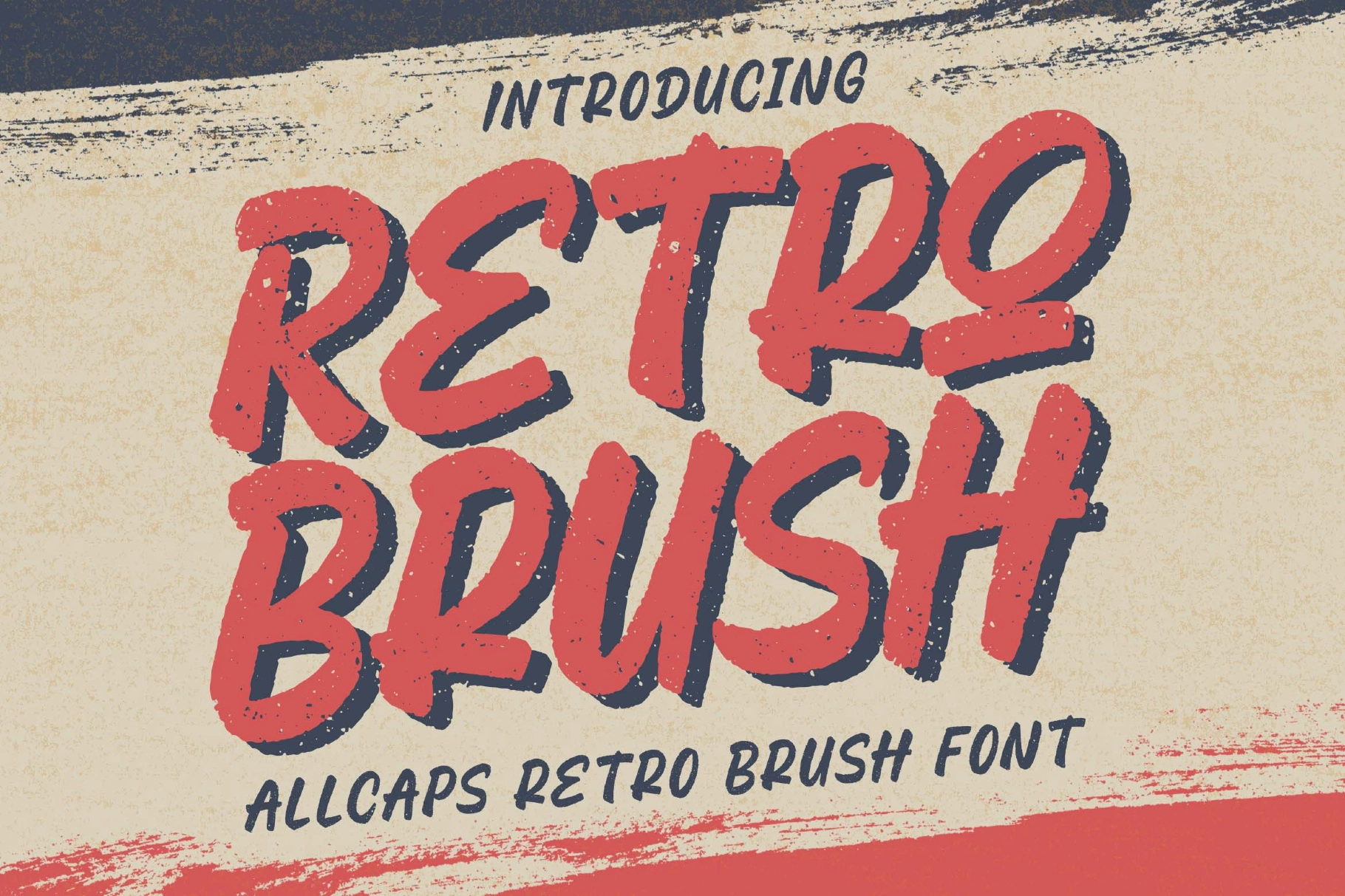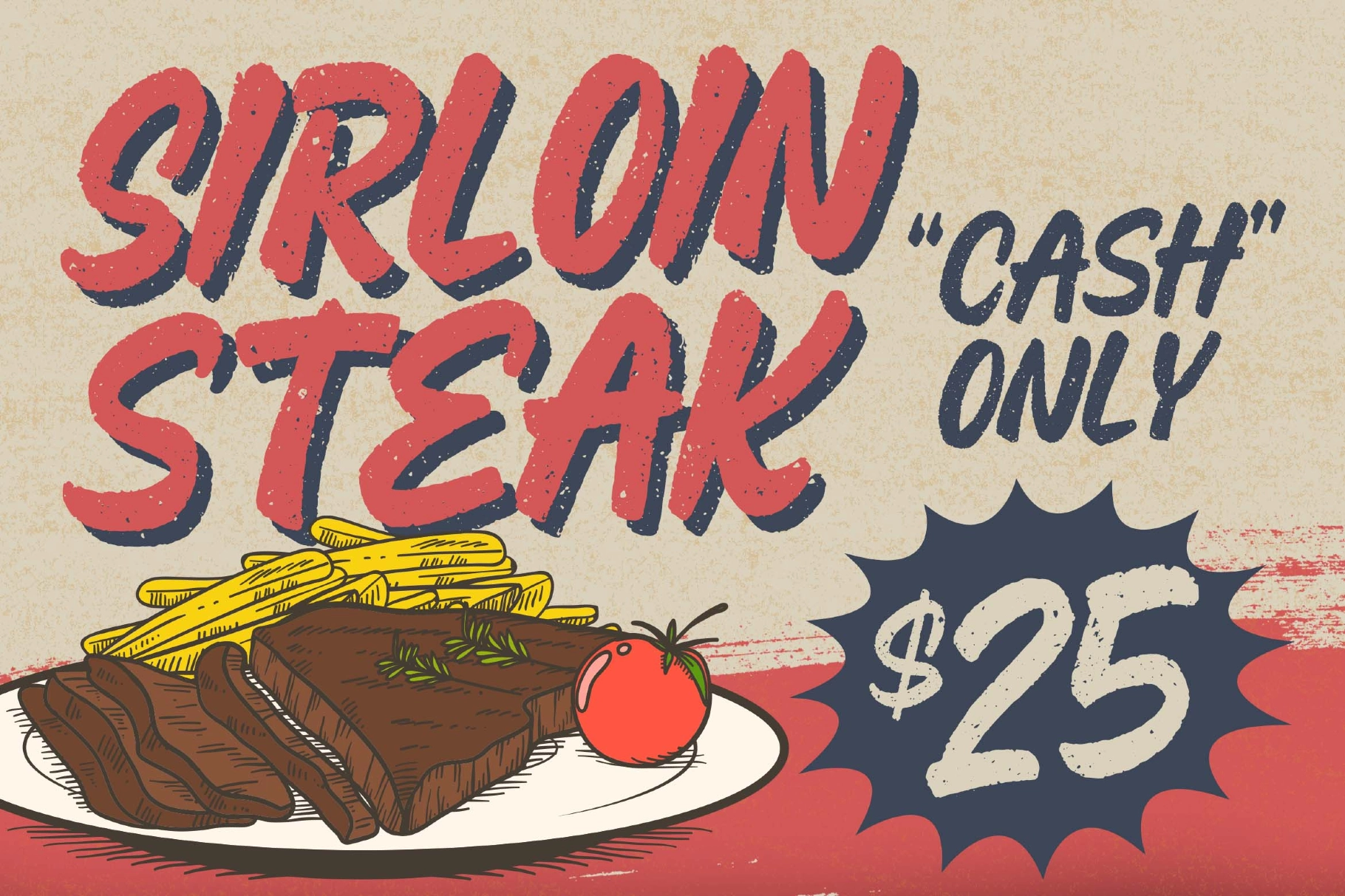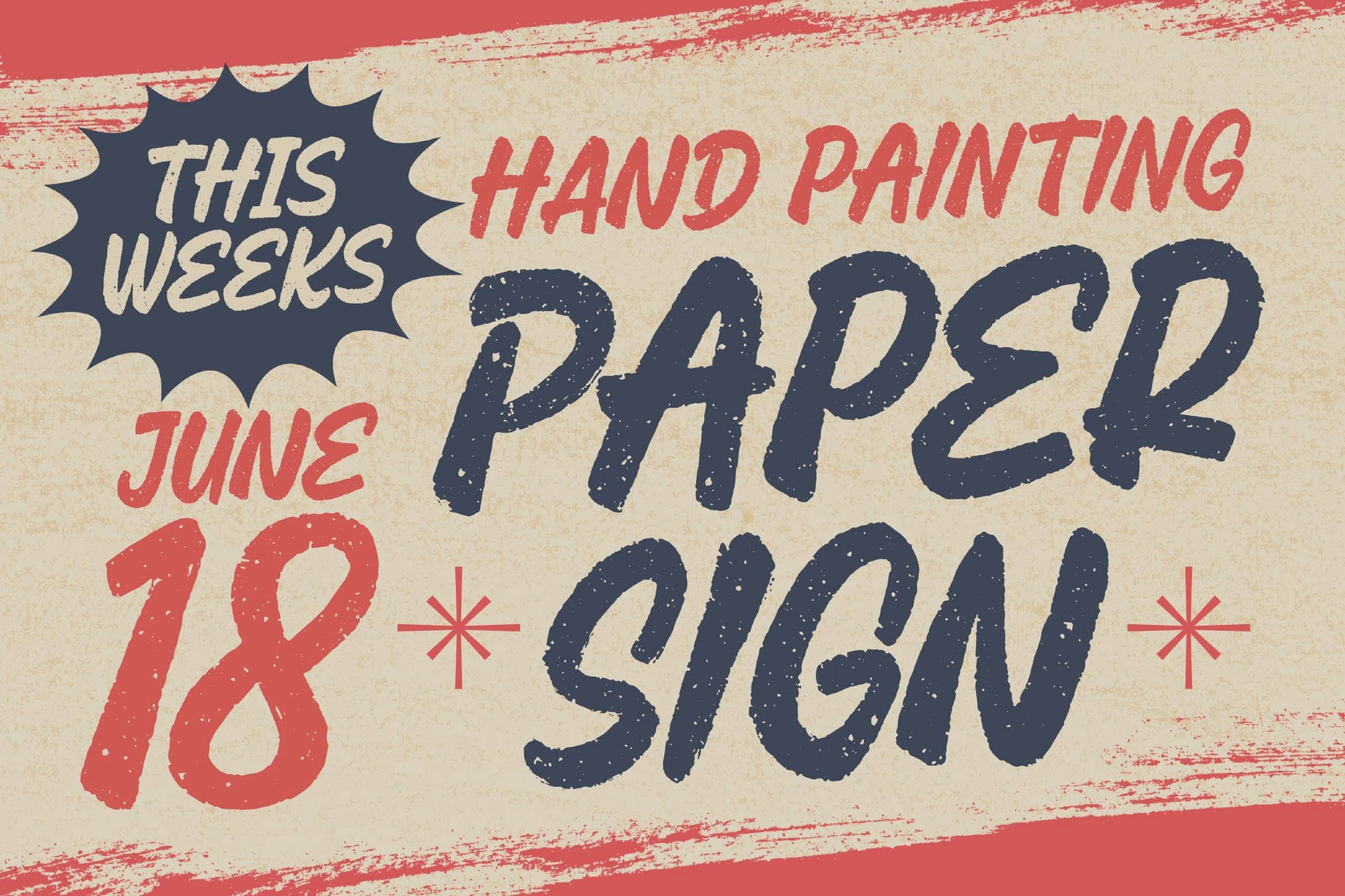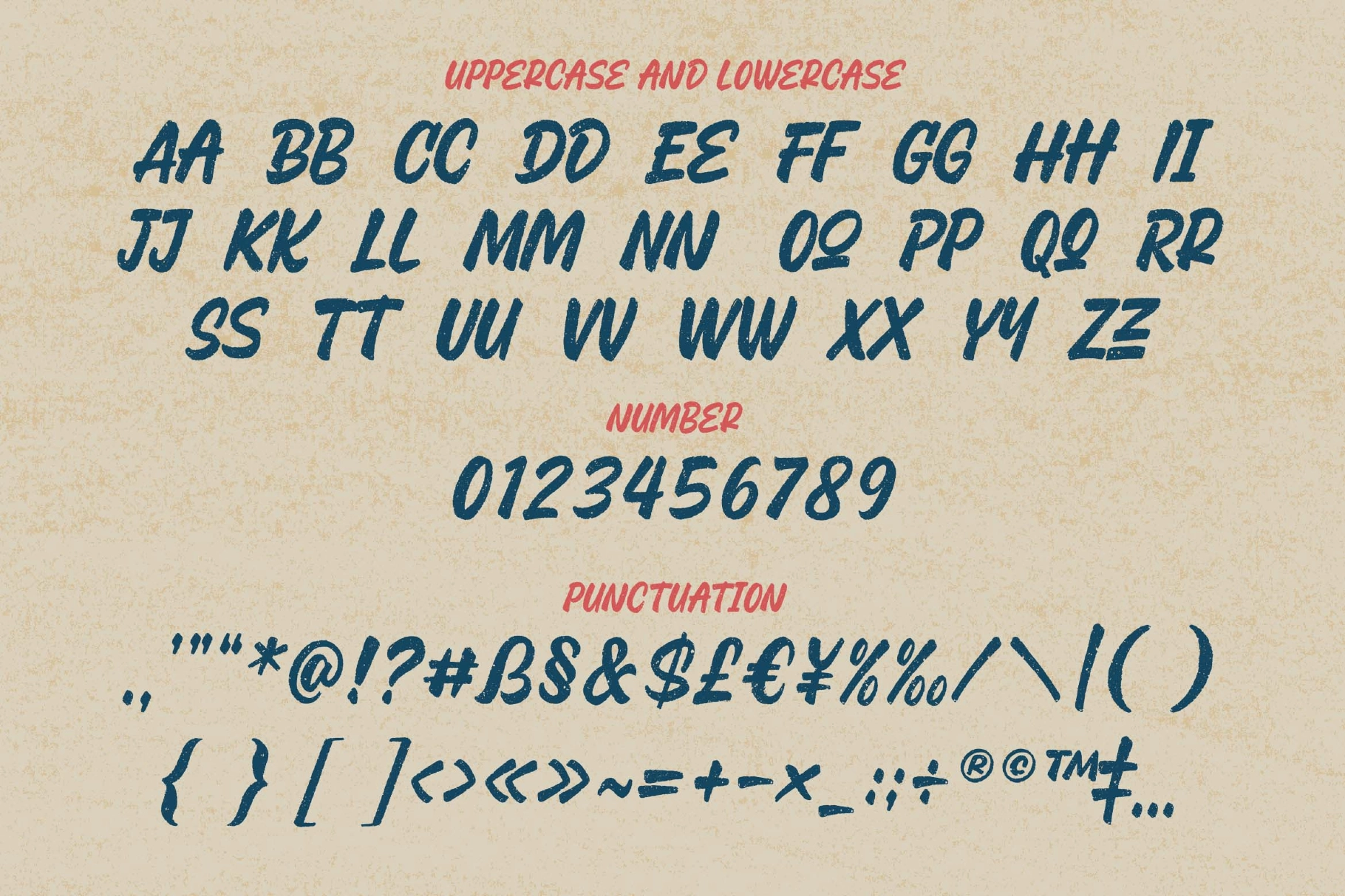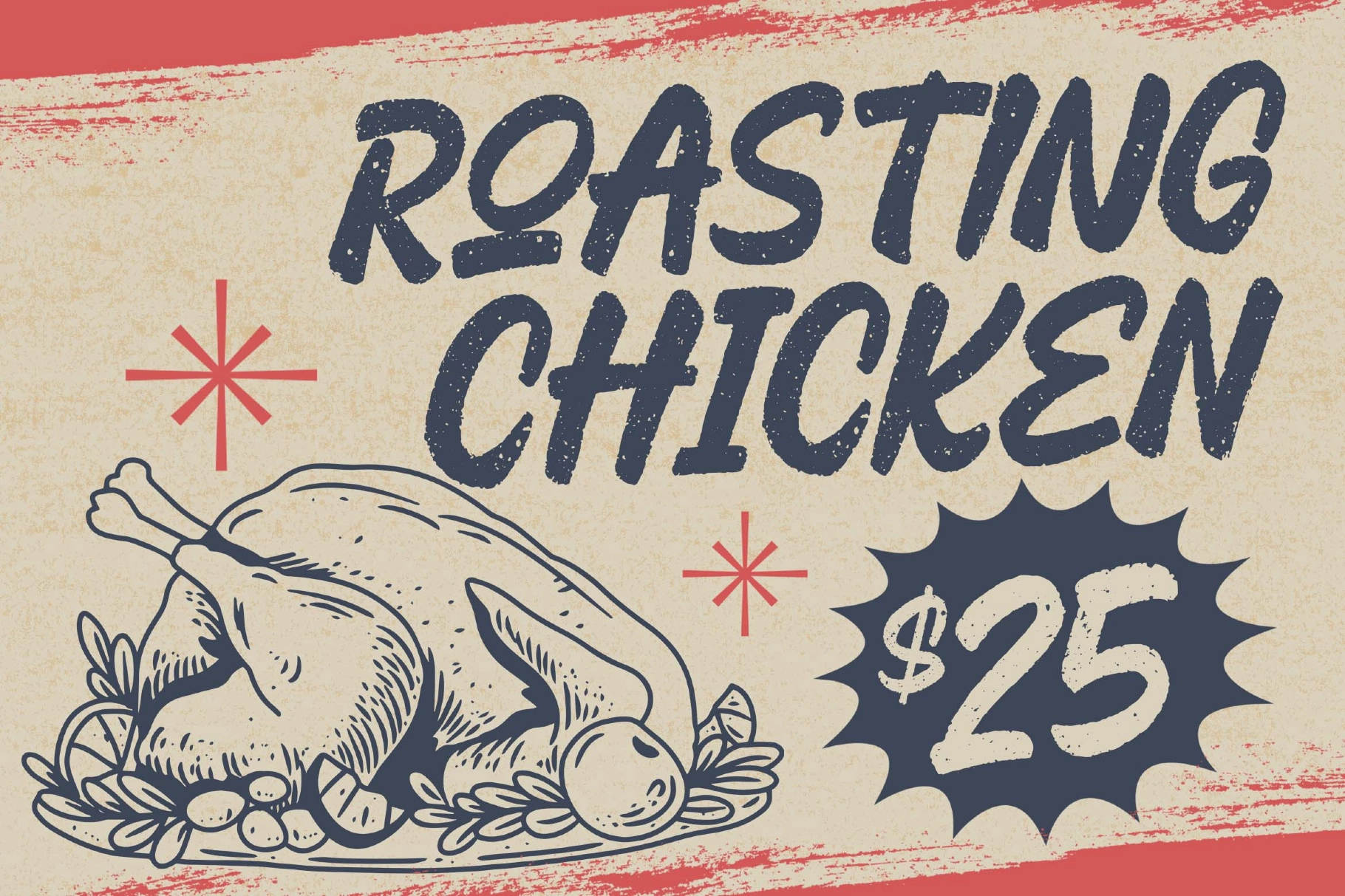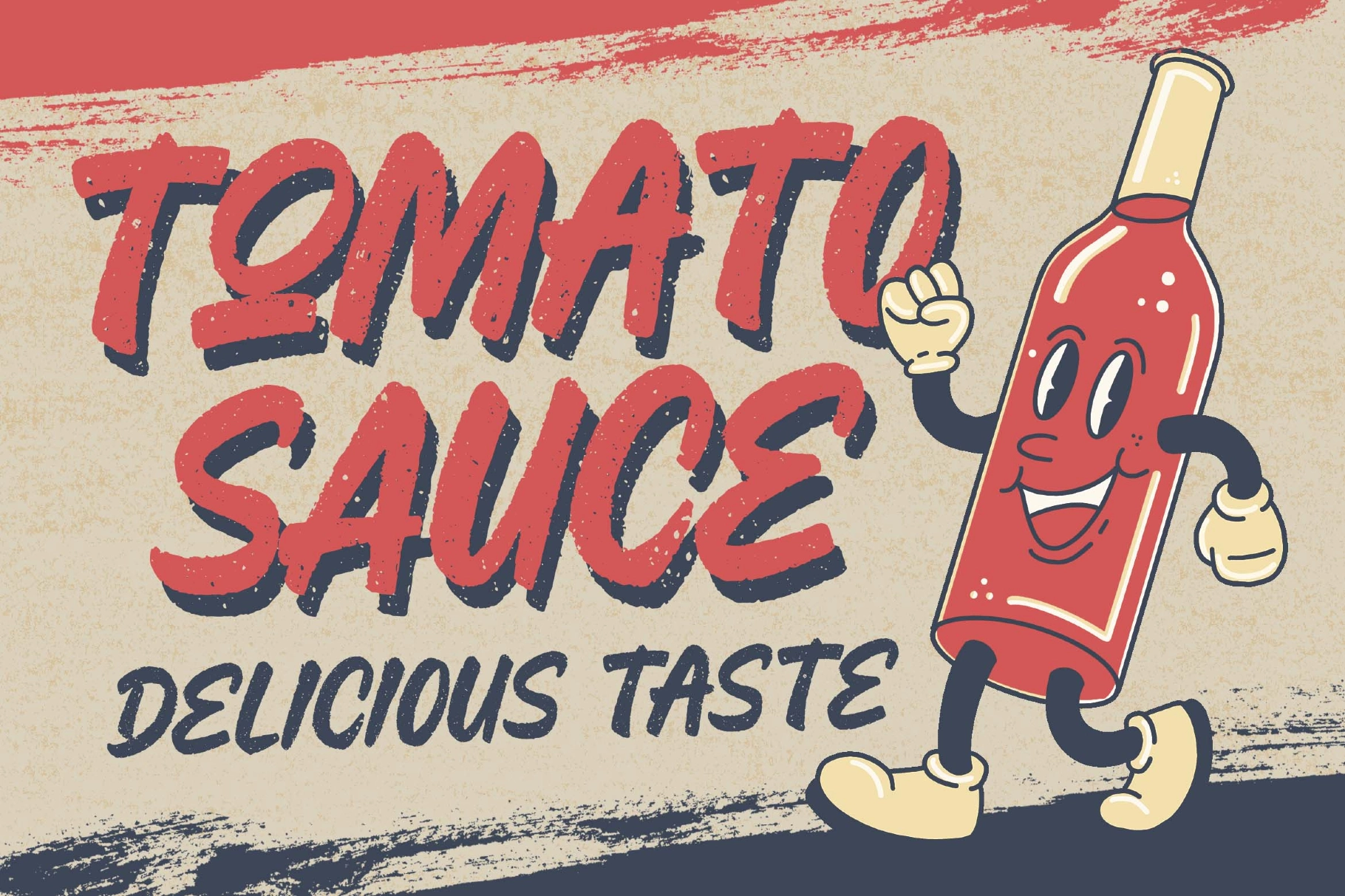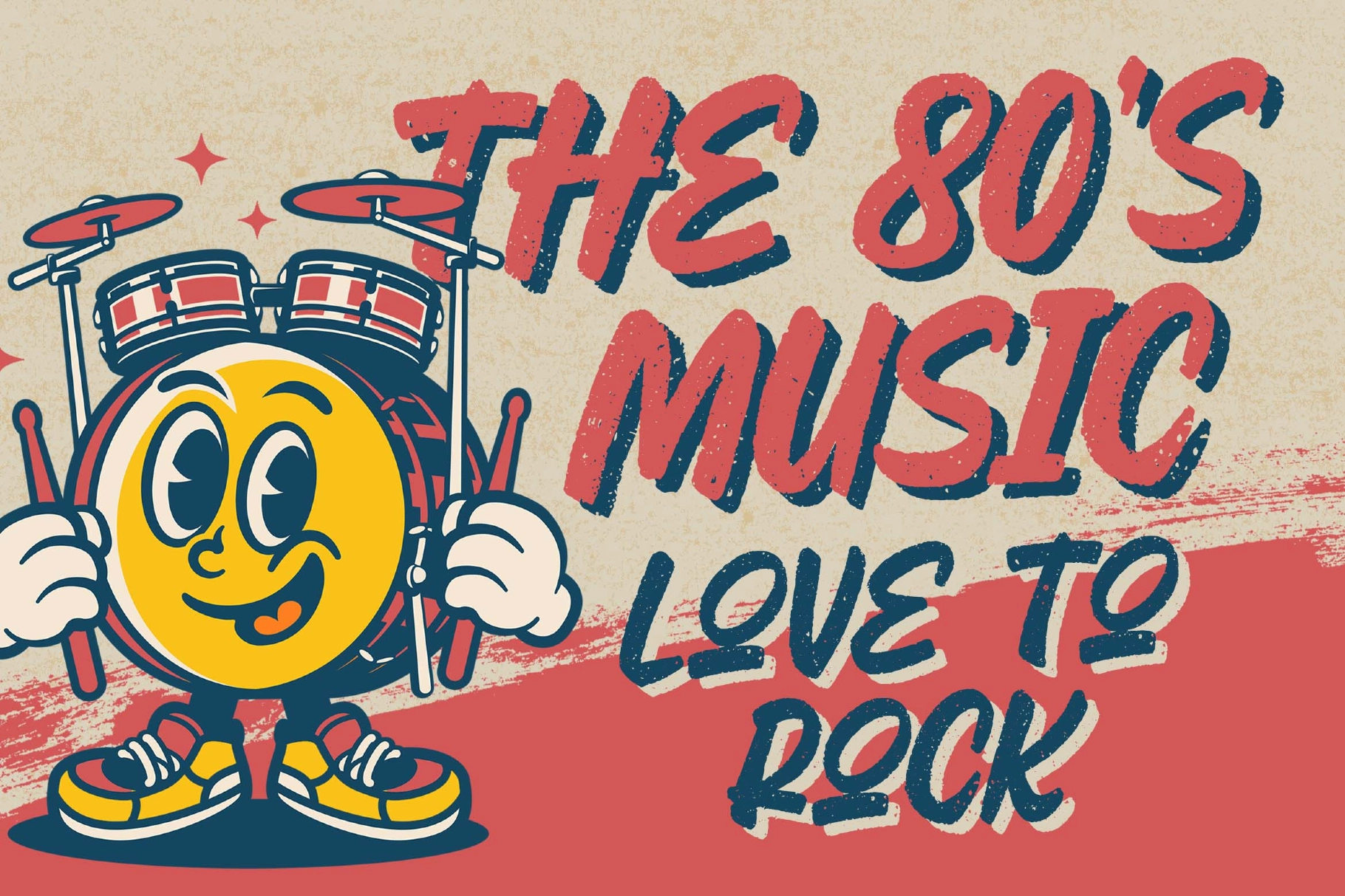
Retro Brush Font
Retro Brush Font is made for any professional project branding, such as logotype, watermarks, poster, branding, promotions, product packaging, etc. Every letter has a playful retro style design. This font comes Otf. and Ttf.
Retro Brush Font includes a full set of retro uppercase and lowercase letters, numerals and punctuation. This font has a retro style. See the previews above to get some inspiration on how to use them.